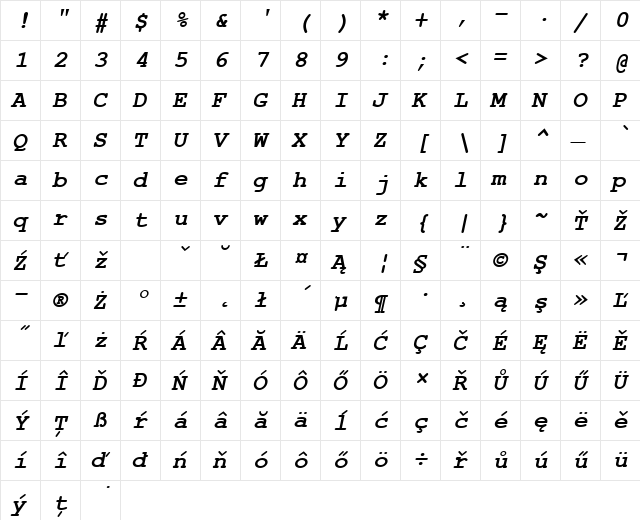
NimbusMonLEE Bold Italic
Design Context for NimbusMonLEE Typeface
NimbusMonLEE offers clean, dependable letterforms without strong stylistic allegiance, making it a practical choice for designers who need flexibility. The slanted form adds forward momentum and visual energy. The heavy weight commands attention and anchors typographic hierarchies.